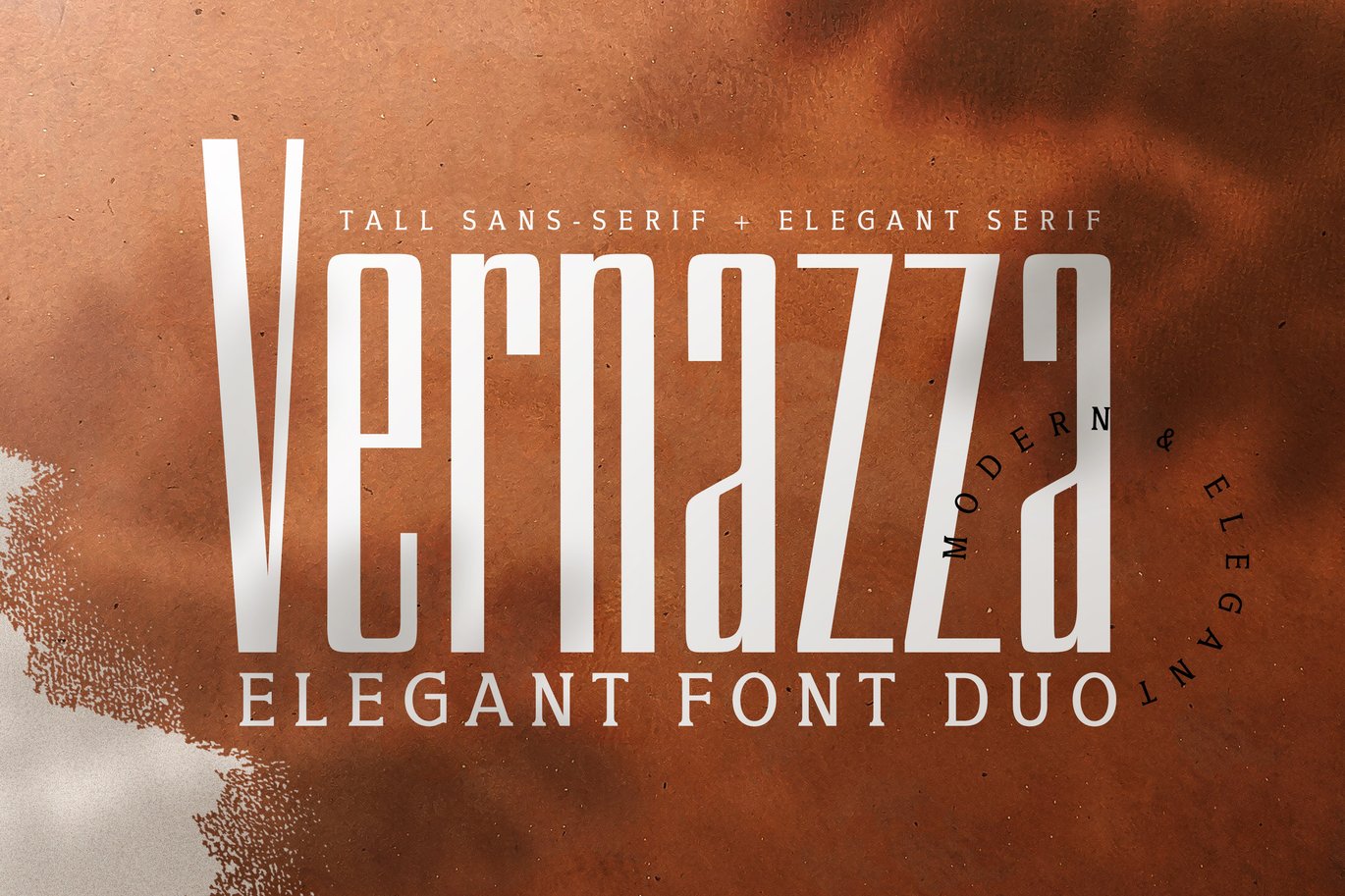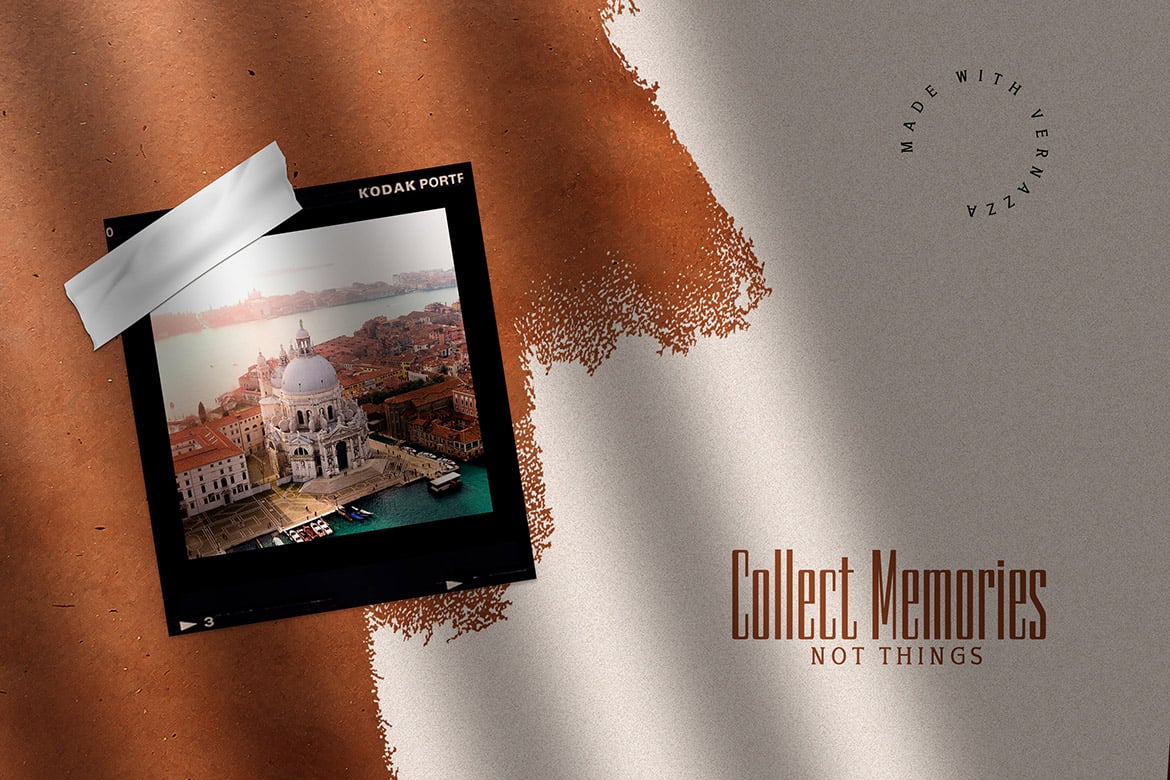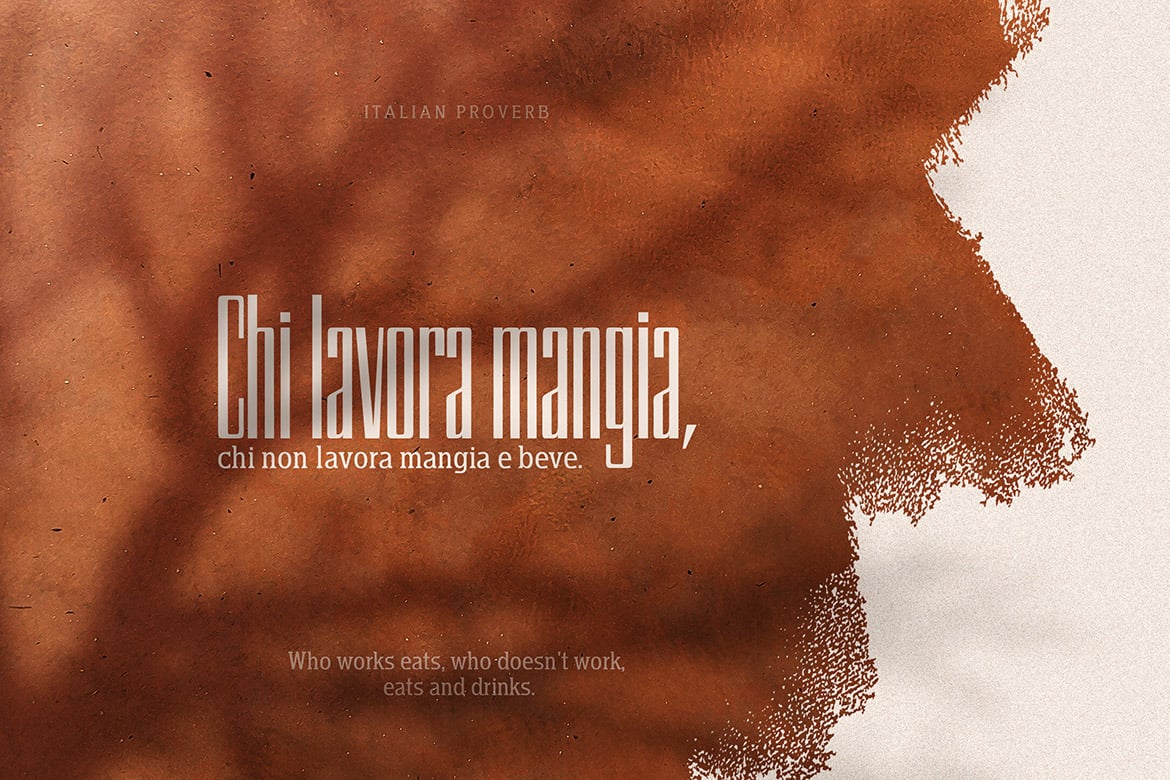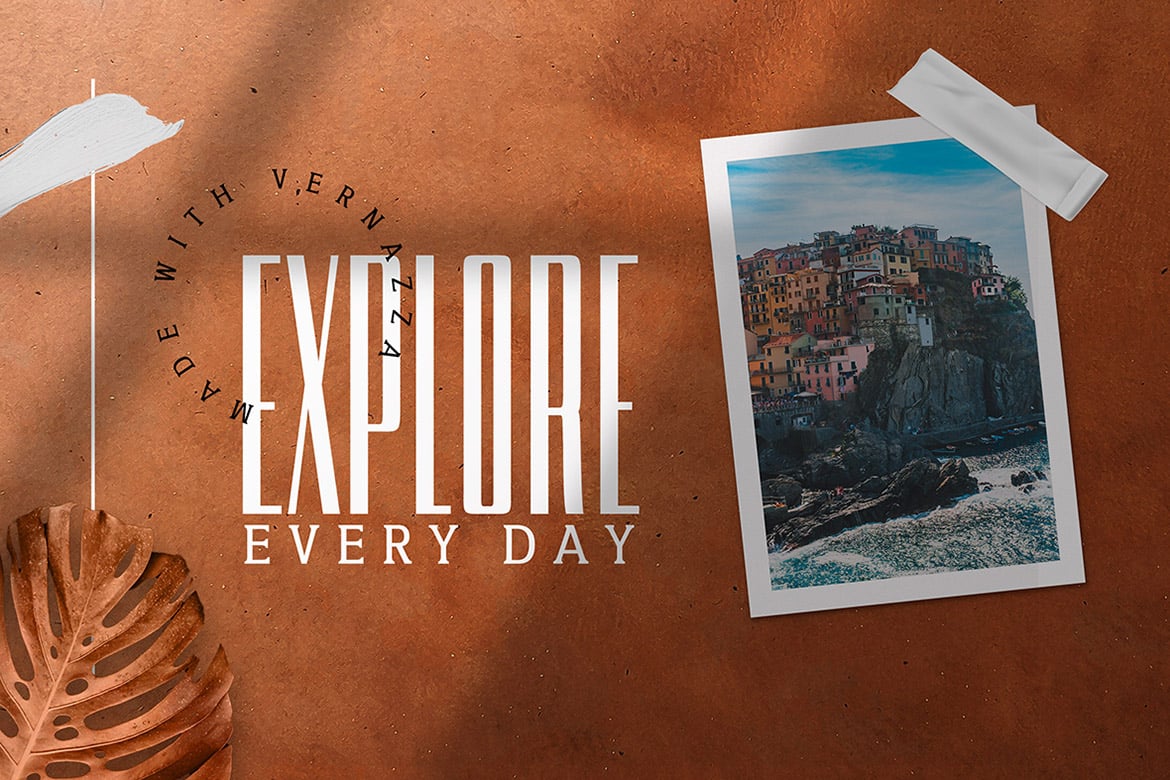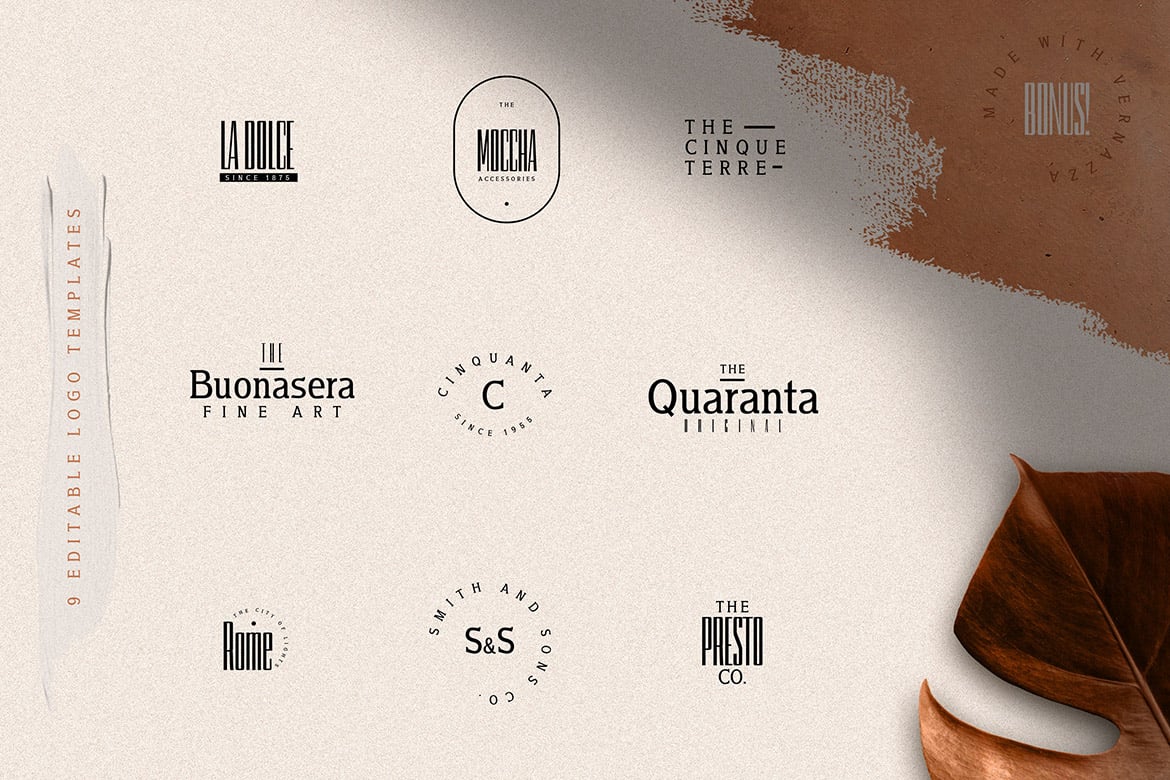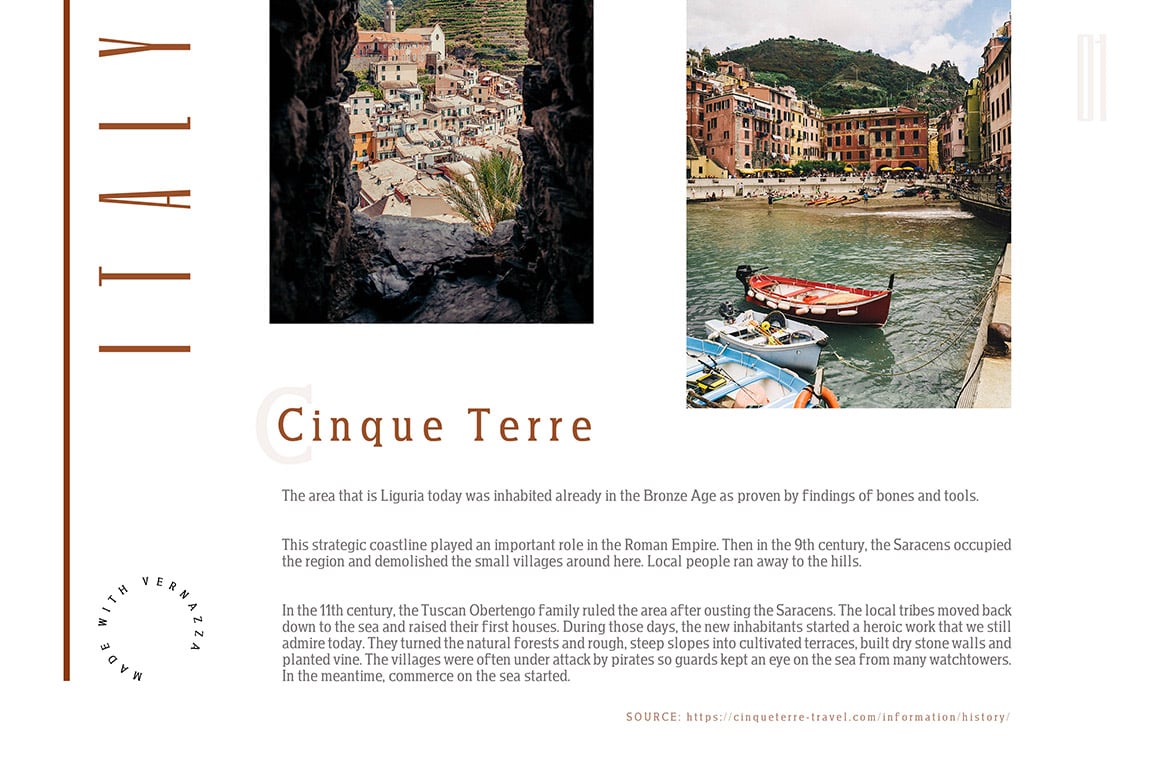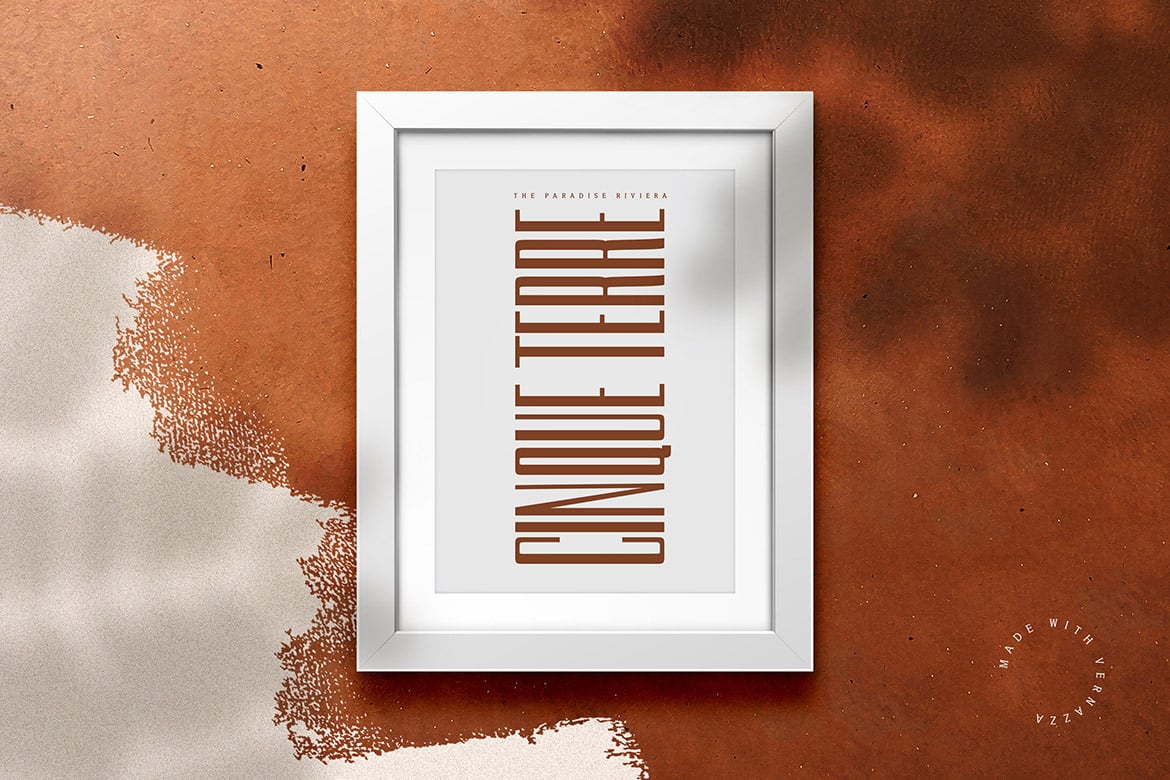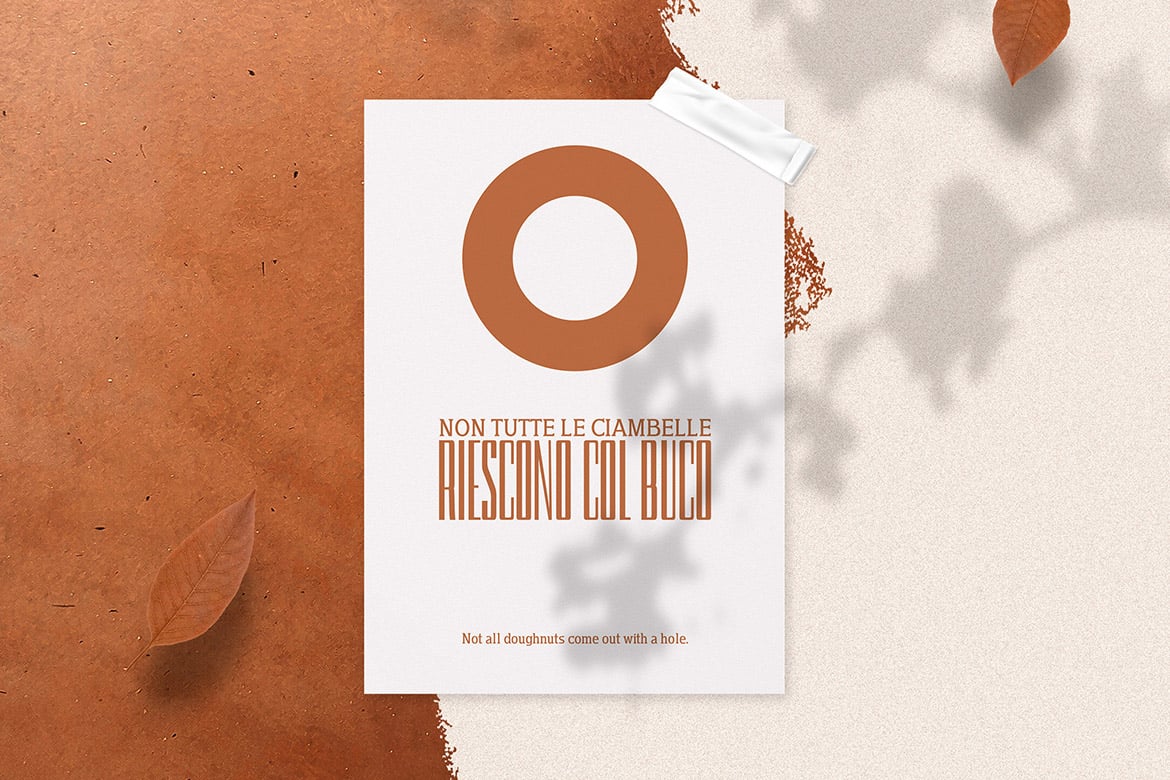
Vernazza Luxury Font Duo
About 5 years ago, together with a good a good friend, we decided to trip and hitchhike through Europe to Italy to a place called Cinque Terre. It’s a little region on the coast of Ligurian Sea with picturesque little villages, rustic coasline and amazing views.
Cinque Terre and Vernazza, which is a little town in the region left a lasting impression and this font is the result of that.
Vernazza is a combination of two fonts – an elegant serif font combined with a tall sans-serif. It helps you create an elegant yet slightly rustic vibe in your designs and works in large display titles, logos and small paragraphs.
You can combine them in endless ways and create unique lockups. What’s more, you’ll also be getting 9 bonus free logo mockups made with Vernazza that you can customize as you see fit in Adobe Illustrator.